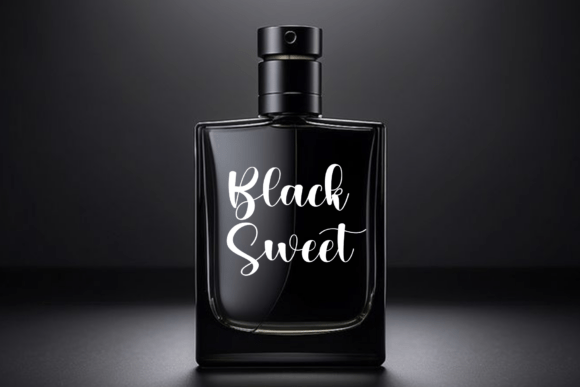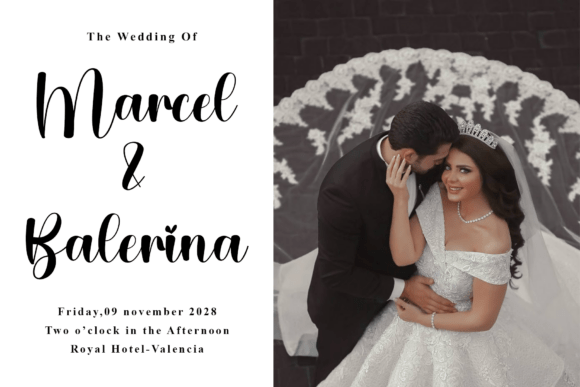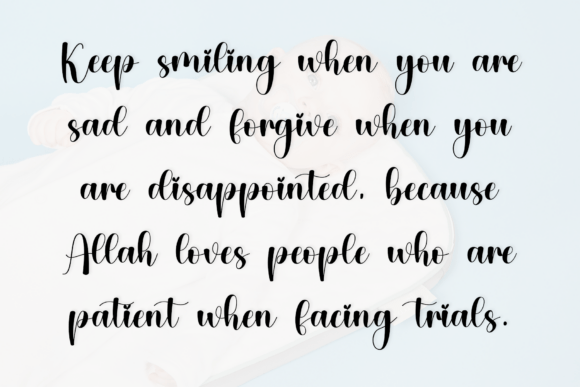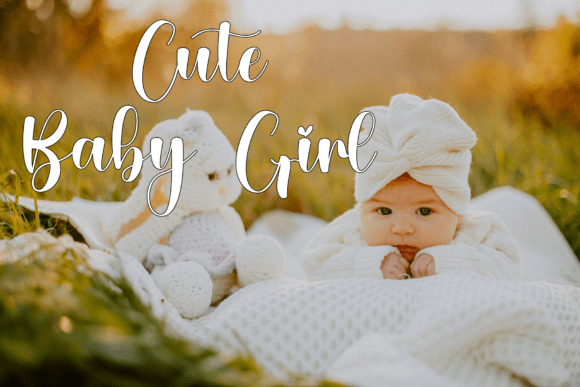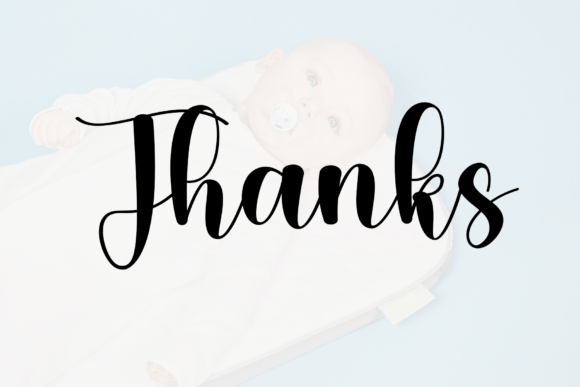
Unleashing the Whimsy of Baby Story Font
Have you ever sat down with a cup of coffee, a blank sheet of paper, and a pen, feeling inspired to create something special for a loved one? Maybe it’s a birthday invitation, a heartfelt thank-you note, or a personal branding project that requires a touch of elegance. Whatever the occasion, the right font can make all the difference. That’s where Baby Story Font comes in – a delicate, handwritten font that exudes softness and charm.
Baby Story Font is perfect for designers who want to add a timeless touch to their projects. With its gentle strokes and feminine flair, this font captures the essence of a handwritten signature, making it ideal for invitations, greeting cards, and personal branding. By incorporating Baby Story Font into your design, you can create a unique and captivating visual identity that sets you apart from the rest.
Baby Story Font Key Features
- Font Style: A handwritten, cursive font designed to resemble a child’s handwriting, perfect for creating a playful and endearing atmosphere.
- Unique Characteristics: The font features unique, hand-drawn elements, such as flourishes and irregularities, which give it a personal and emotive feel.
Designer Review: Baby Story Font
Overall, I think the Baby Story Font has some lovely qualities, but it’s not without its limitations. Let’s start with the good stuff: ✨ the font’s playful, handwritten feel is perfect for any project that needs a bit of whimsy. It’s especially great for children’s books, nursery decor, or any other project that’s targeting a younger audience.
Another thing I like about this font is its ✨ versatility. It comes in a range of weights and styles, from light and delicate to bold and chunky, so you can mix and match to suit your design needs. The font also includes a variety of swashes and flourishes that can add a touch of elegance to your designs.
One of the main limitations of the Baby Story Font is its ✠ lack of sophistication. While it’s perfect for playful, informal designs, it may not be the best choice for more formal or professional projects. Additionally, some of the characters may not be as legible as others, which can make it difficult to read at smaller font sizes.
In conclusion, I think the Baby Story Font is a great choice for projects that need a playful, handwritten feel. While it may not be the most sophisticated font, it’s perfect for creating fun and engaging designs that will appeal to a younger audience.
Recommendations
- Use the Baby Story Font for children’s books, nursery decor, or any other project that’s targeting a younger audience.
- Choose the lighter weights and styles for a more delicate look, or the bolder weights for a more playful feel.
- Experiment with the swashes and flourishes to add a touch of elegance to your designs.
- Avoid using the Baby Story Font for formal or professional projects.
Tip: Use Baby Story Font for baby-related projects such as baby shower invitations, nursery decor, and baby announcements.
Tip: Use Baby Story Font for custom baby-themed graphics, illustrations, and designs.
Tip: Use Baby Story Font for presentations, reports, and documents related to babies or childcare.
Baby Story Font is commonly used for:
- Baby shower invitations and decorations
- Nursery decor and wall art
- Baby announcements and birth certificates
- Children’s book illustrations and graphics